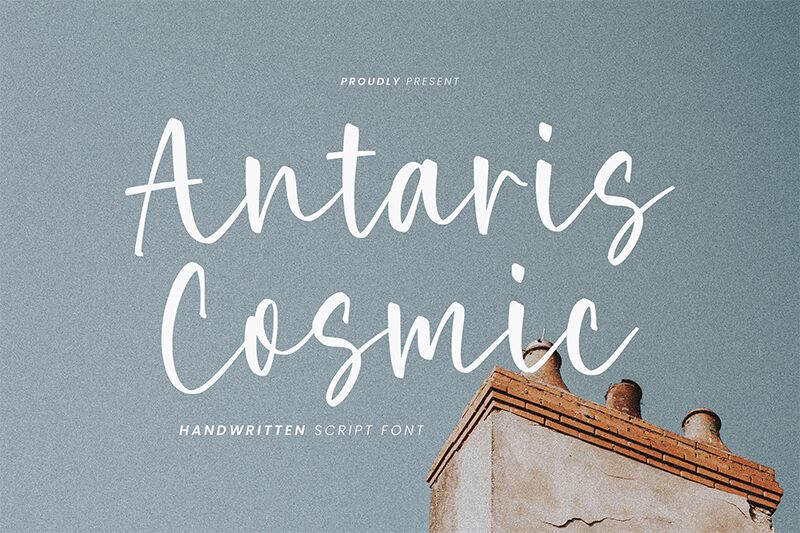
Antaris Cosmic
Antaris Cosmic font by Timur Type is a free handwritten font with an elegant, flowing, and modern script style. The typeface is lively, expressive, and graphically beautiful making it perfect for drawing attention and emphasizing what you have to say. It combines both fun and professionalism in its letterforms so it works well for both serious and light-hearted projects.
Create cool T-shirt typographic artworks that will get noticed or design business cards that will be remembered once handed out. Another set of great uses include luxury branding, magazine covers, packaging designs of various products such as soaps or perfumes, monogram logos on characters M & A for instance etc.